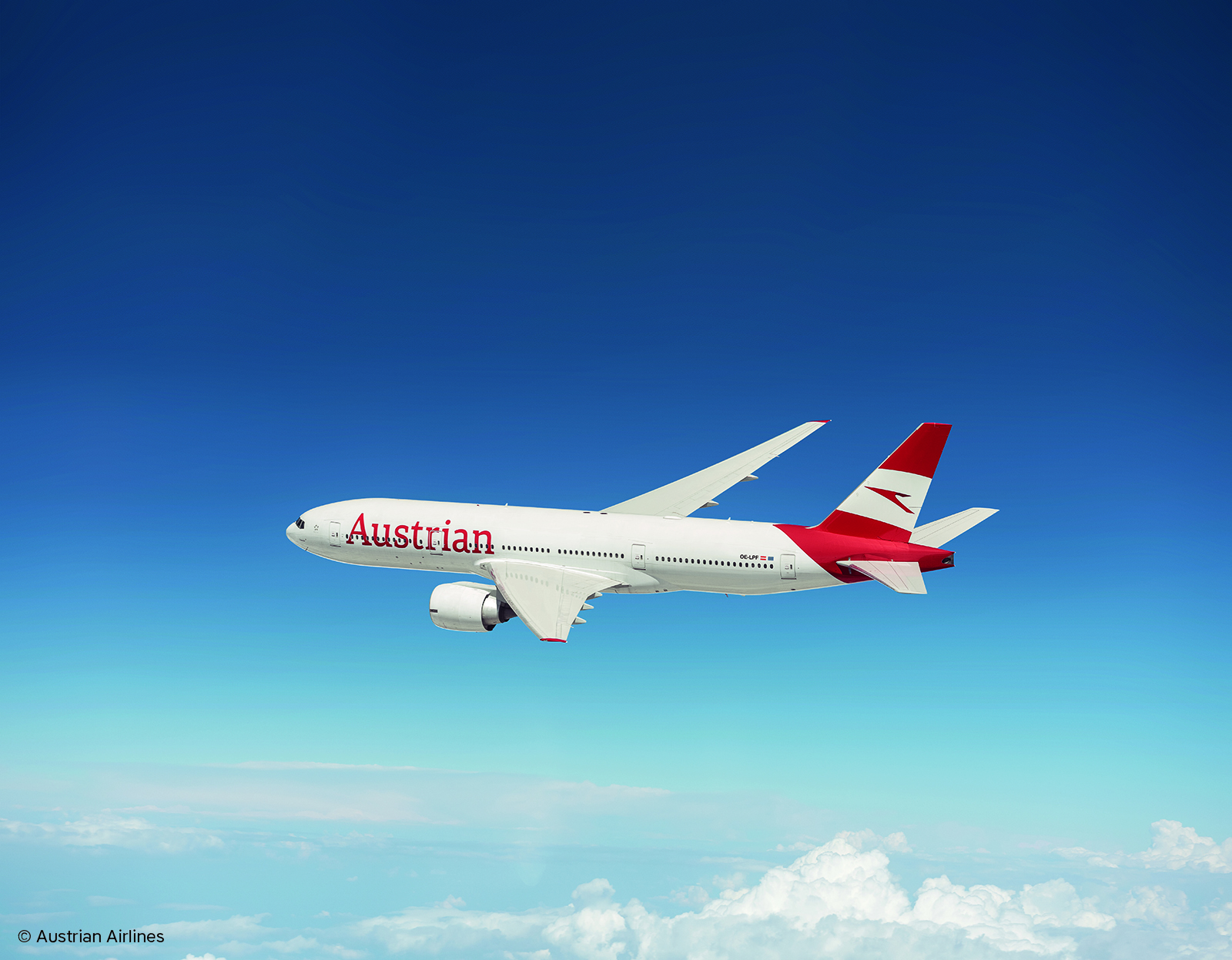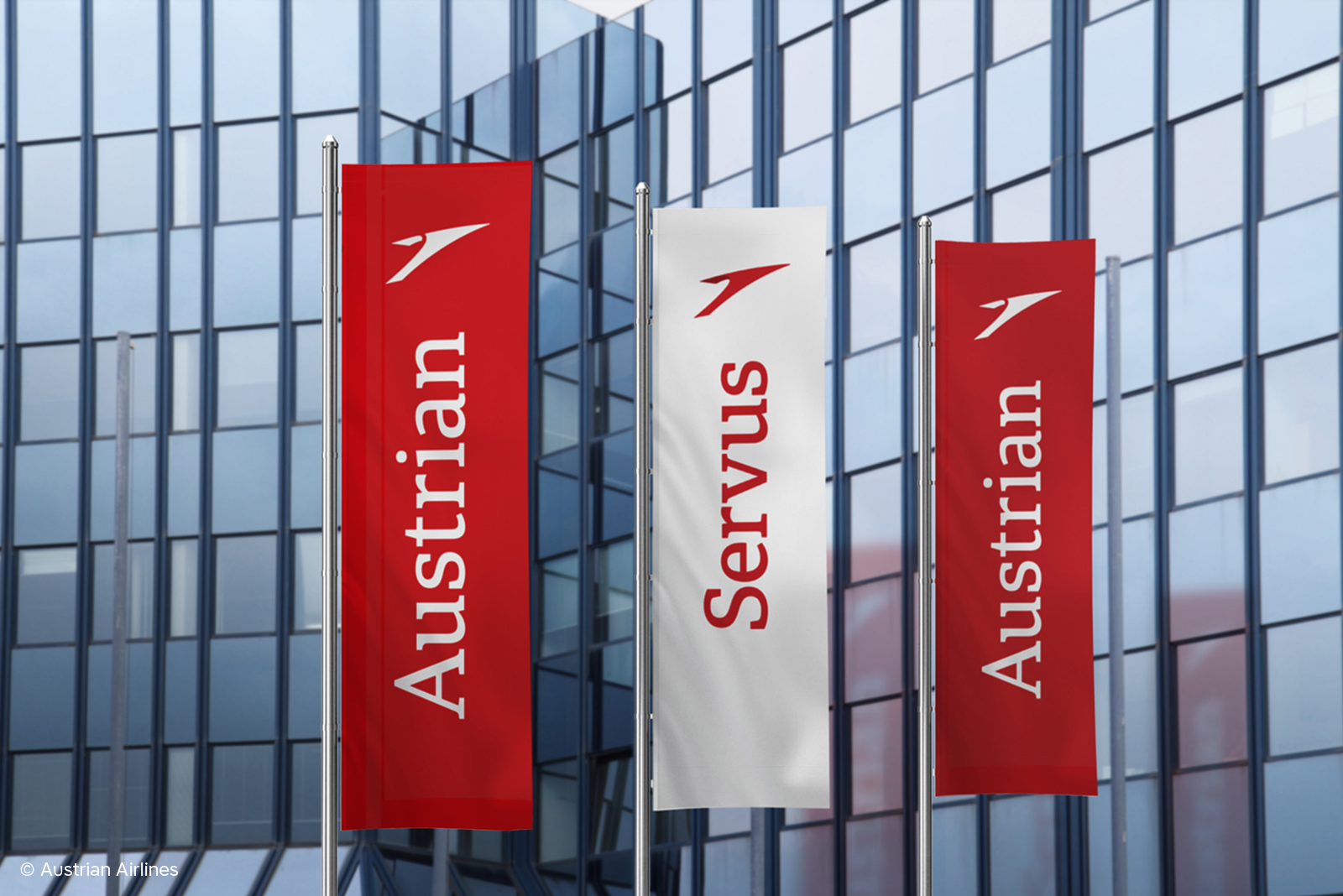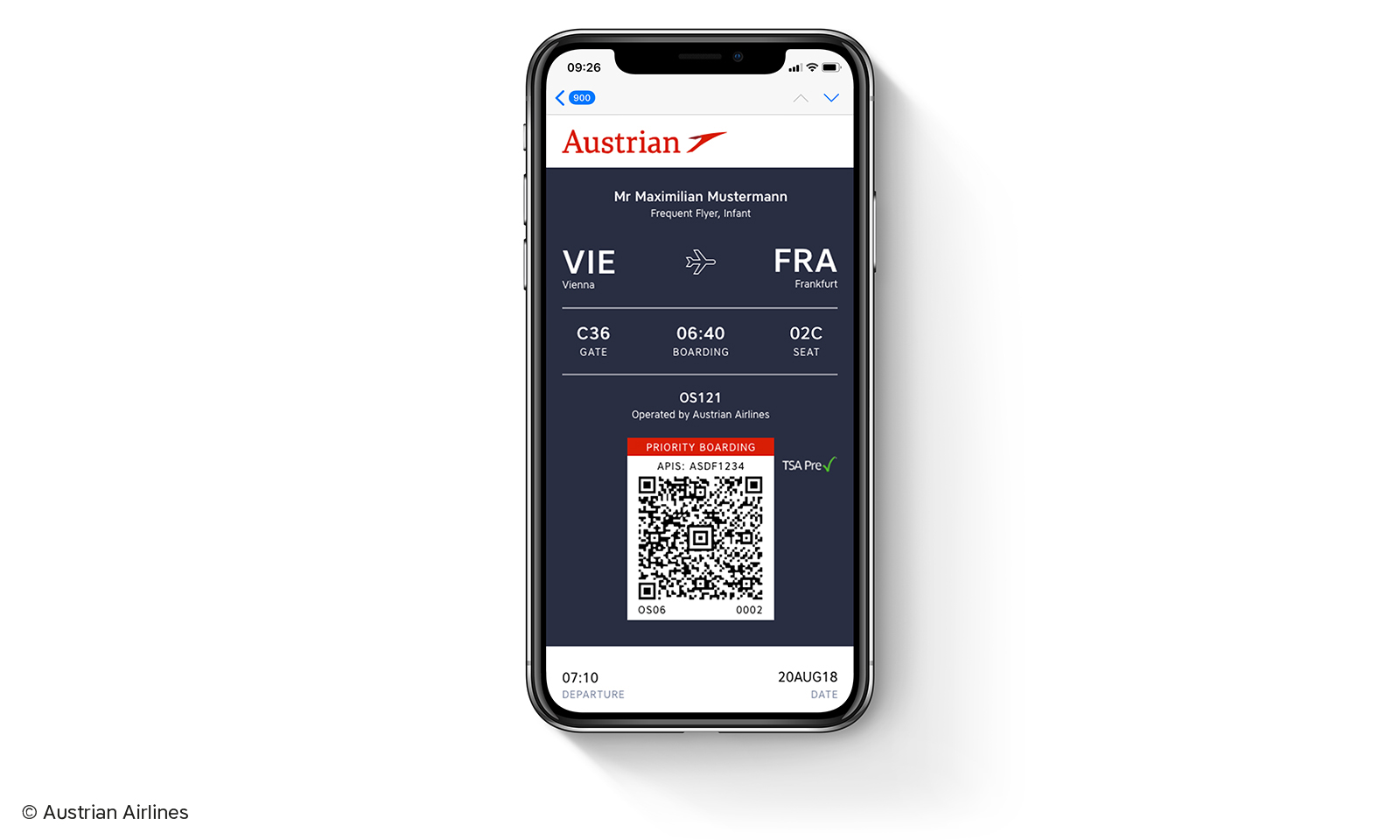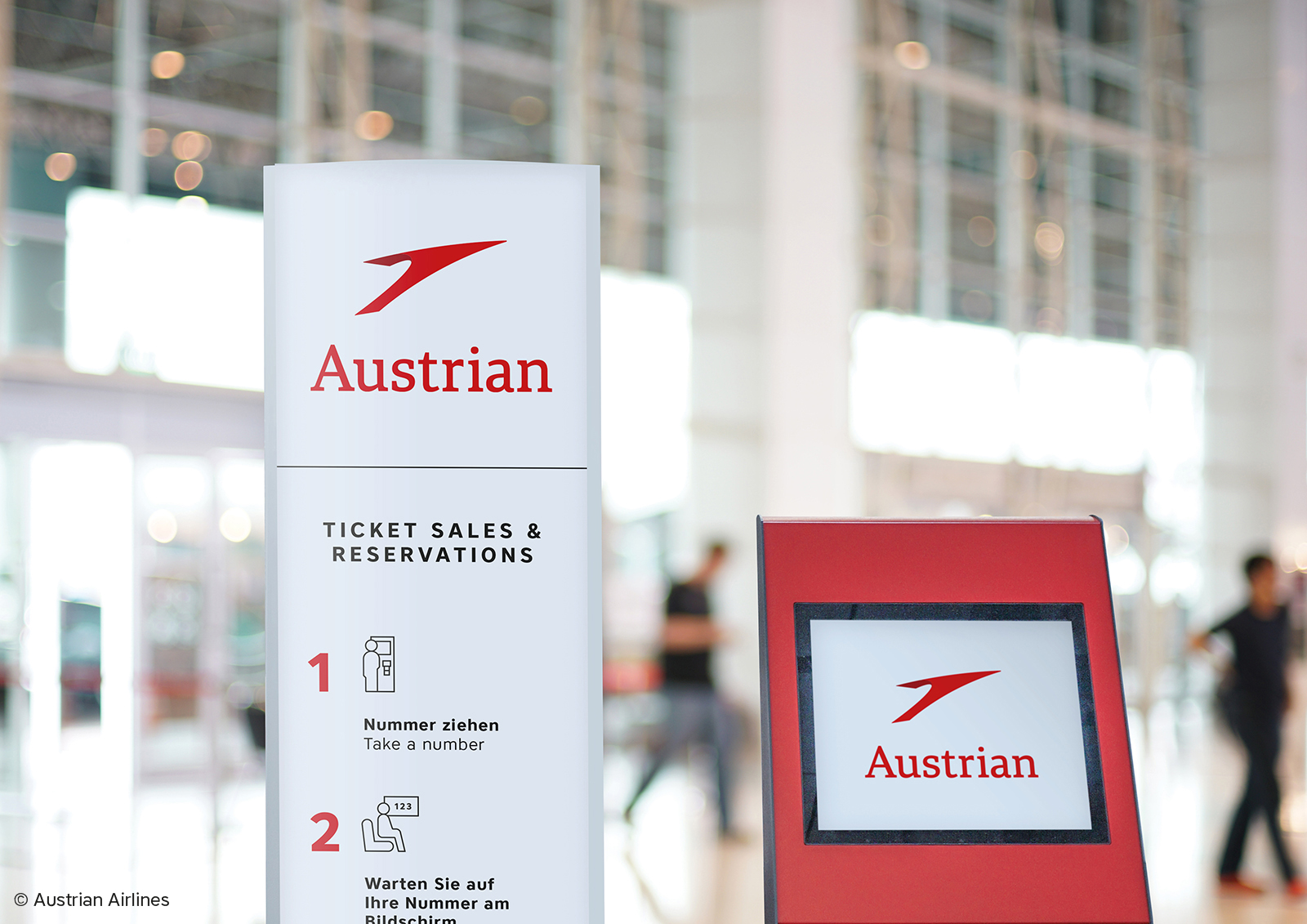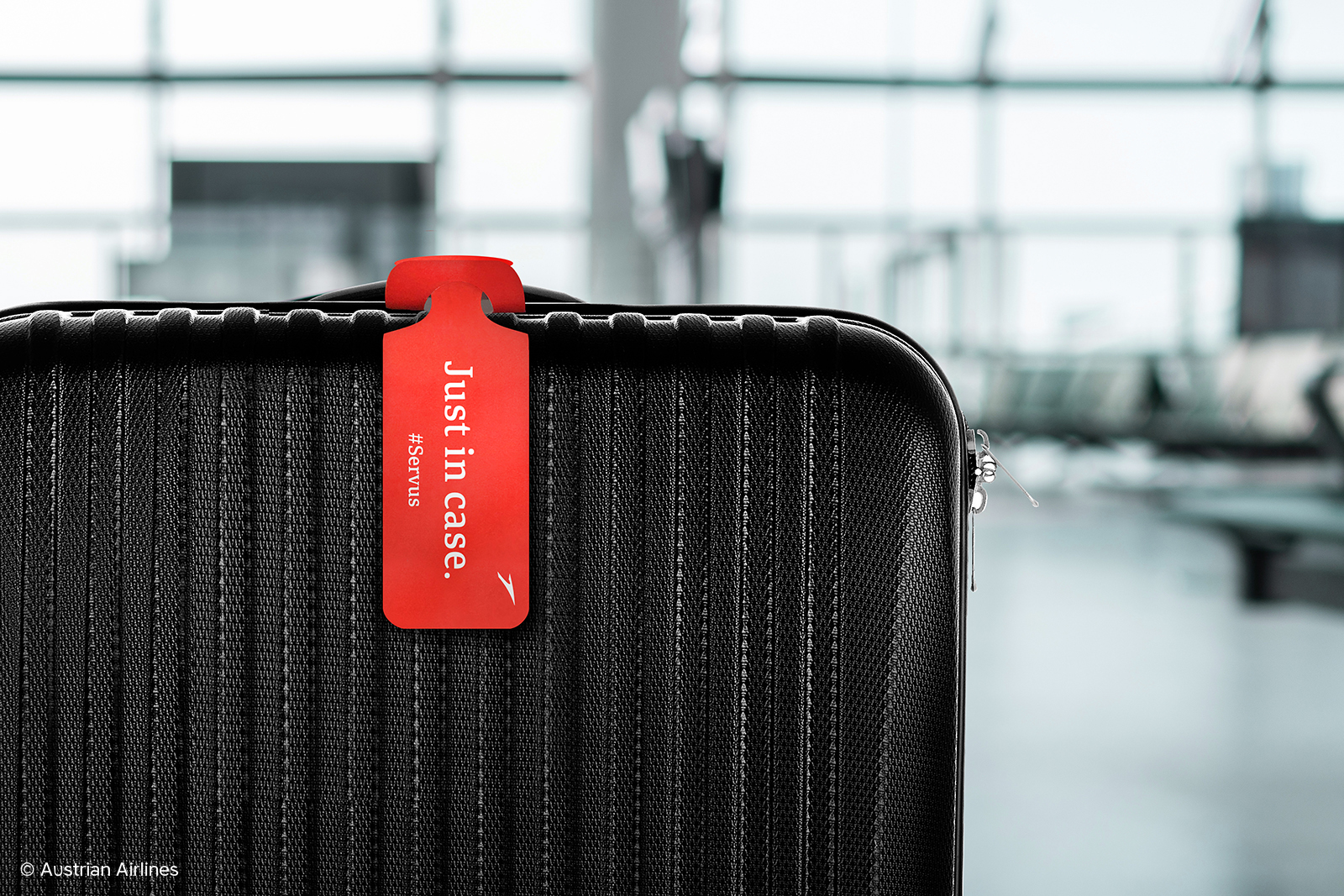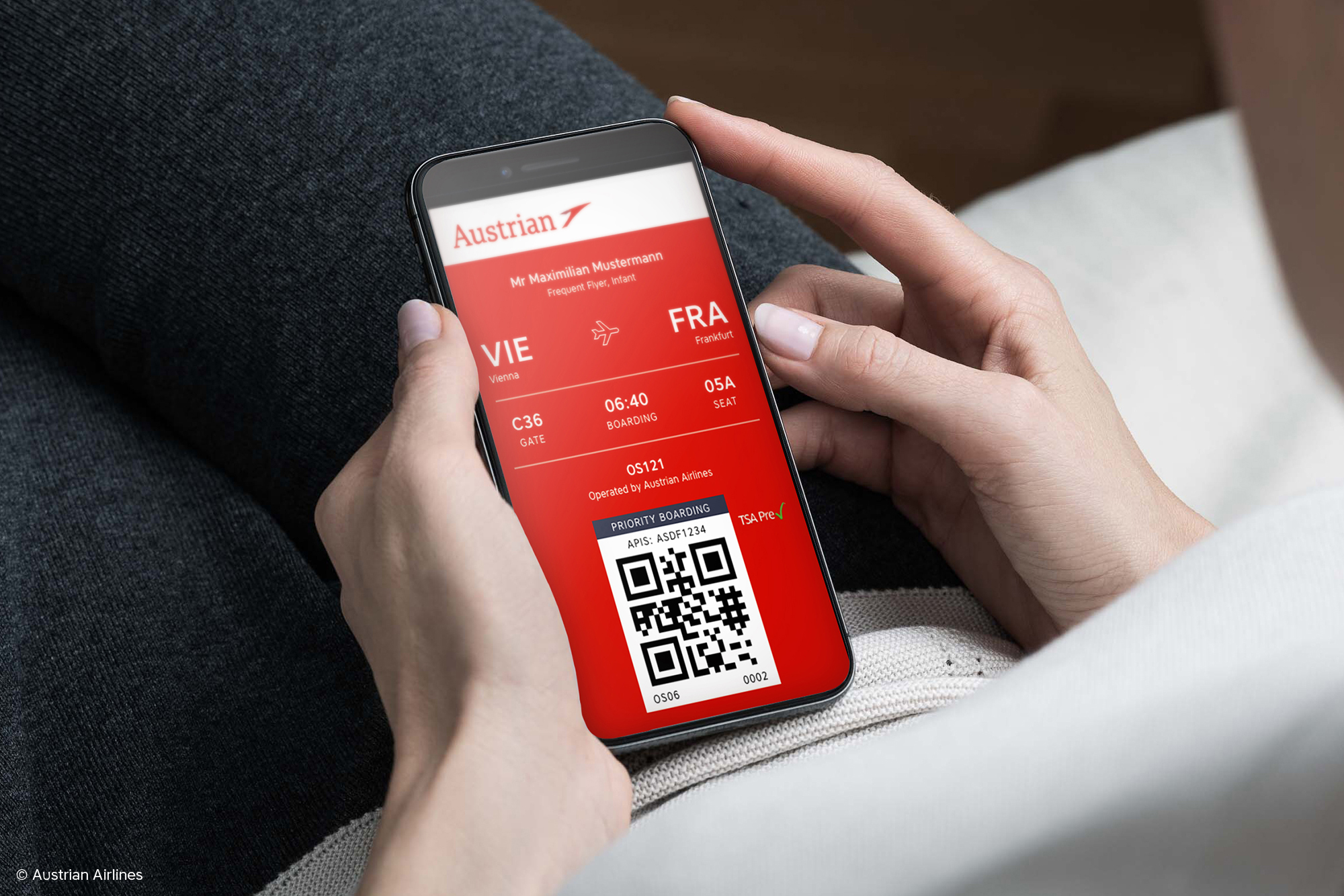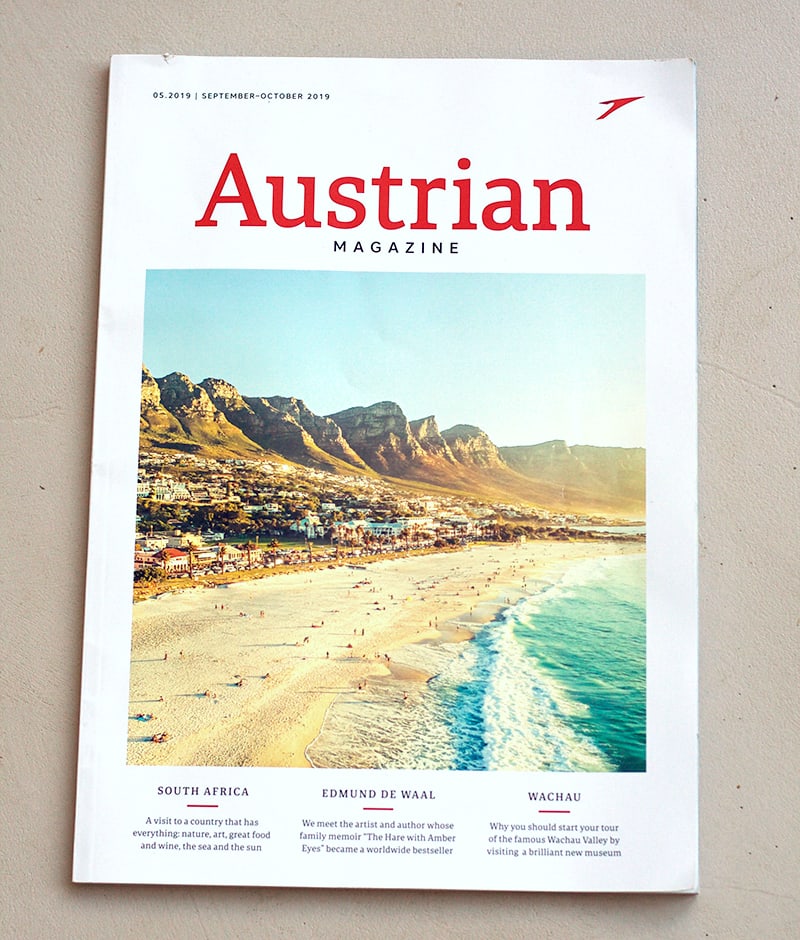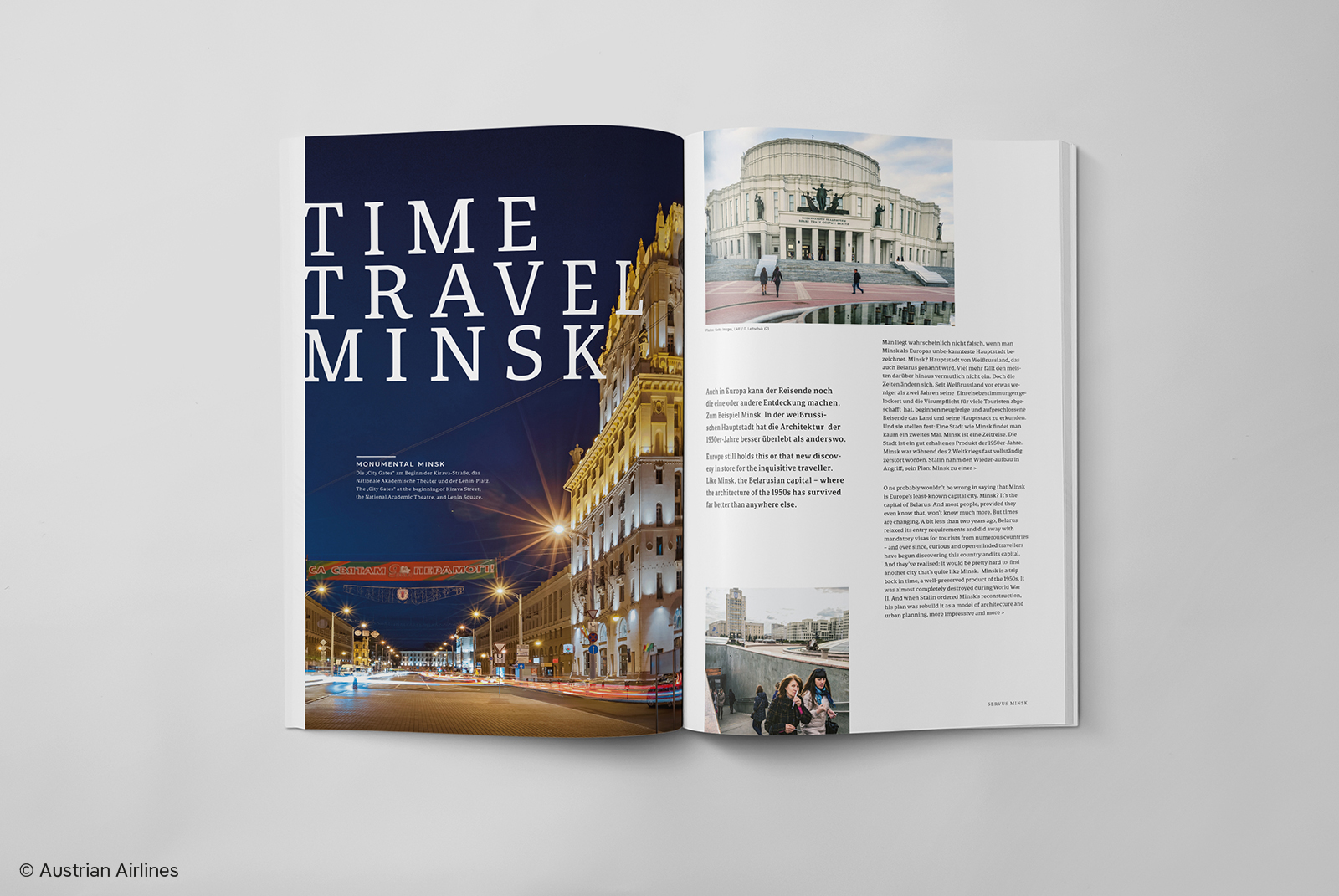
Austrian Airlines Rebrands with Portada
Every once in a while a respected brand will either have us create a custom font family for them or simply employ one of our typefaces to great effect. After a long research and iteration process, Austrian Airlines has rebranded with our Portada font for all customer interactions — digital and print.
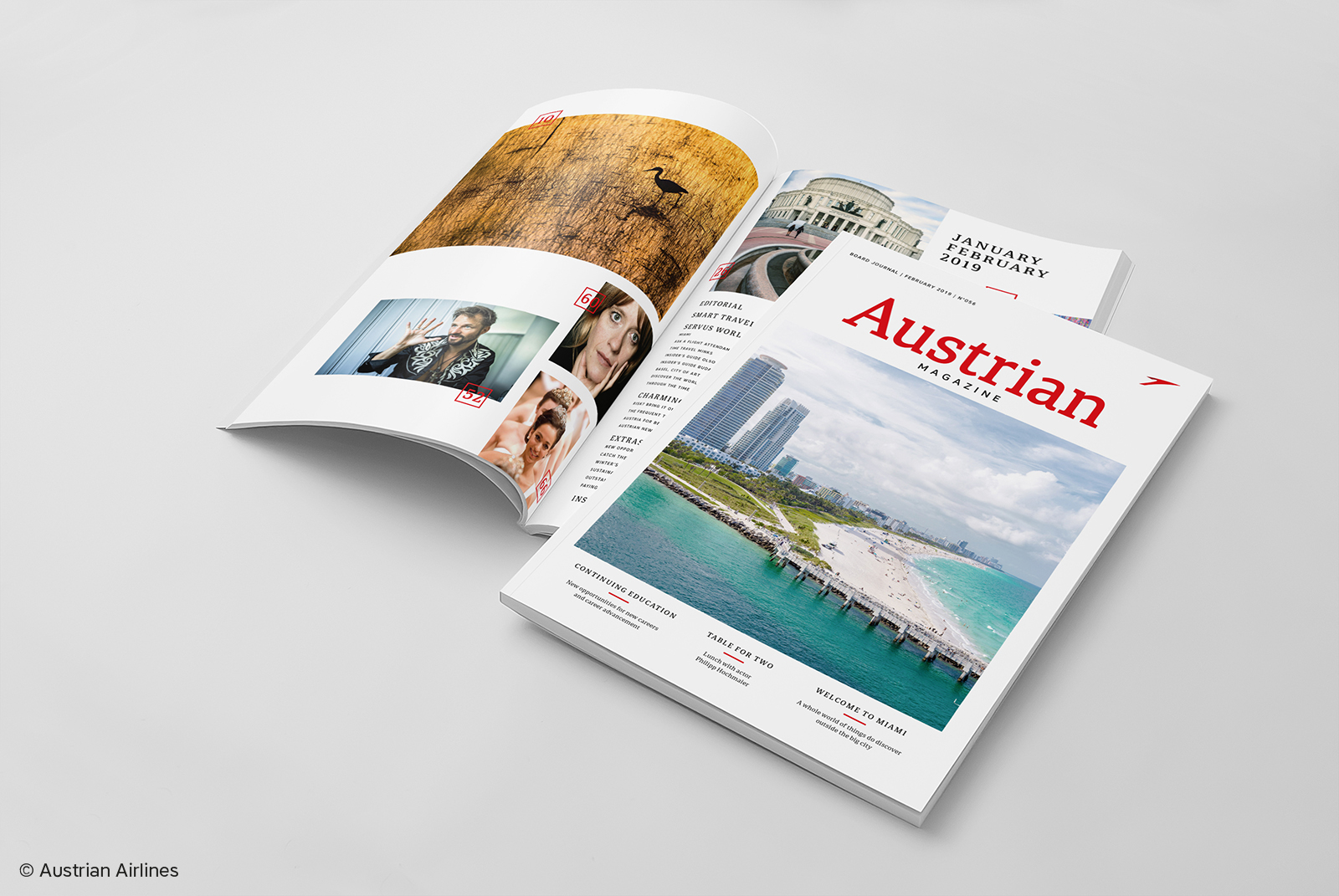
Austrian Airlines hired consulting, strategy, and design firm Brainds to balance a look that is approachable and professional for their 60th anniversary rebrand. The rebrand had to respect the history of Austrian Airlines and modernise it without completely overthrowing its brand value and the good will it has garnered over more than the last half-century.
One priority for Austrian was to optimise for the digital world without losing their voice. Everything was scrutinised, from reservations and boarding to in-flight touchpoints and airport wayfinding. The logo was refined and given more prominent angles. The wordmark, previously an old-fashioned serif, was difficult to read on the side of their aircraft and was also deemed unsatisfactory for digital environments.
Brainds decided that everything from airport signage and their in-flight magazine to the digital app and the livery name should be set in Portada. Brainds said the Portada family brings the modern warmth they wanted to every touchpoint and company representation with which the customer comes into contact. As a subsidiary of the Lufthansa Group, Austrian Airlines also knew Portada would easily translate from print to digital and from orientation signage to social media without any fuss.
Austrian Airlines carries as part of its DNA a friendliness, hospitality, and service orientation upheld by their tagline “the charming way to fly”, as shown in their brand video. Brainds won a prestigious Red Dot Award as a result of their efforts to boldly update Austrian Airlines with a contemporary classic. And we are proud to see the Portada family used in such a wide range of applications.
Comparison of old and new logo (using Portada) of Austrian Airlines. Note the old wordmark’s thin serifs and contrast, and the lower x-height, making recognisability difficult.
Note the strong colours, sturdy letterforms, their height on the side of the plane, and their legibility. Courtesy of Austrian Airlines.
New flags using Portada. Courtesy of Austrian Airlines.
The newly designed boarding pass for Austrian Airlines. Courtesy of Austrian Airlines.